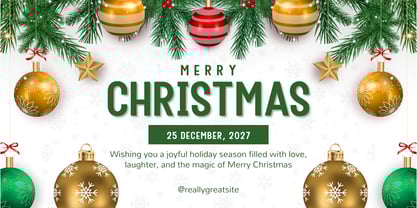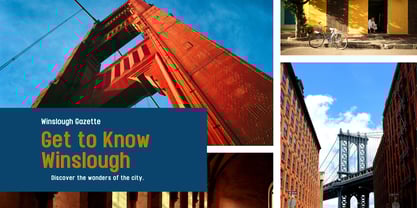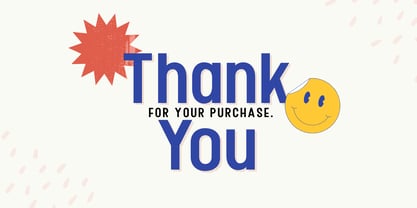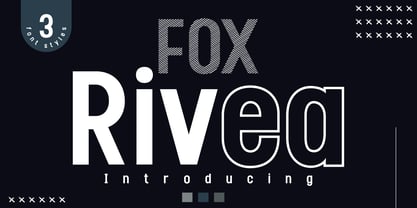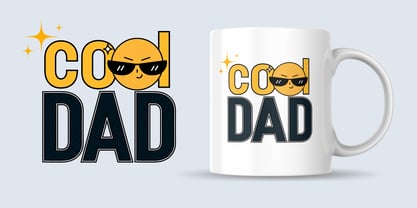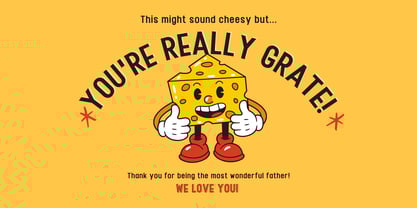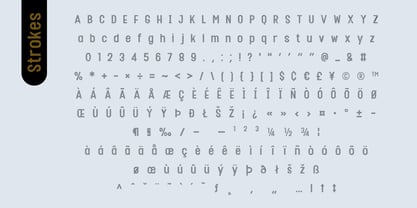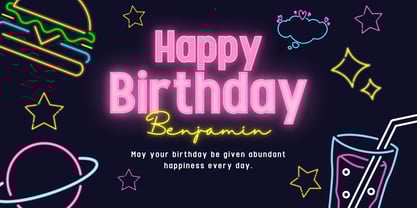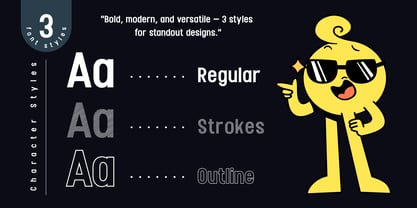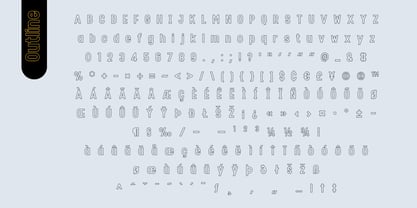
Fox Rivea
by Fox7
The Fox Rivea Font Family was designed by Rattana Rattanawan and published by Fox7. Fox Rivea contains 3 styles.
Fox Rivea is a bold and versatile display font family featuring three eye-catching styles: Regular, Strokes, and Outline. With clean geometry and a playful edge, Fox Rivea works beautifully in both digital and print designs. Its layered looks allow you to mix and match styles for maximum visual impact. Designed to bring a modern, stylish touch to your creative projects, it’s perfect for headlines, branding, posters, logos, packaging, and more.